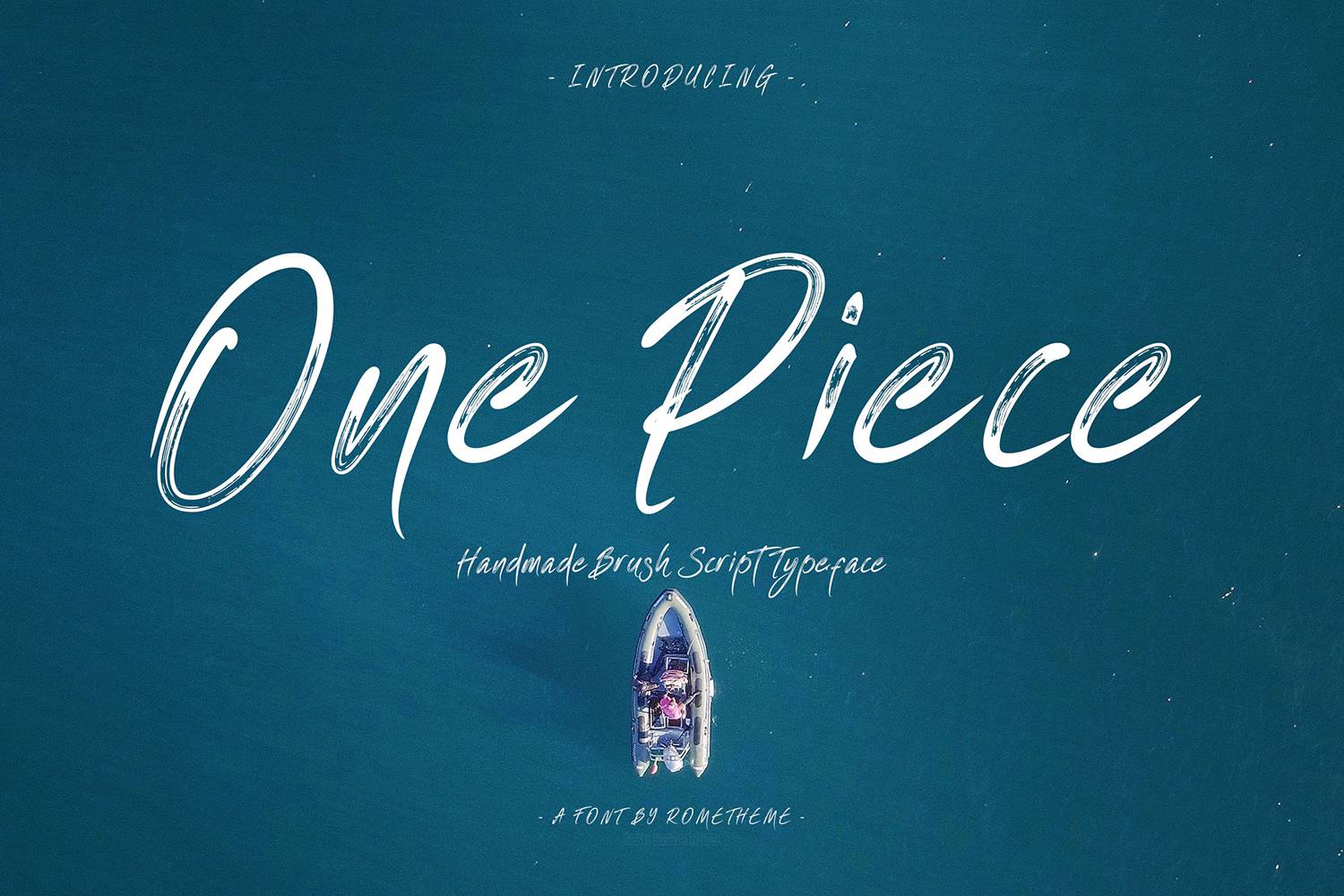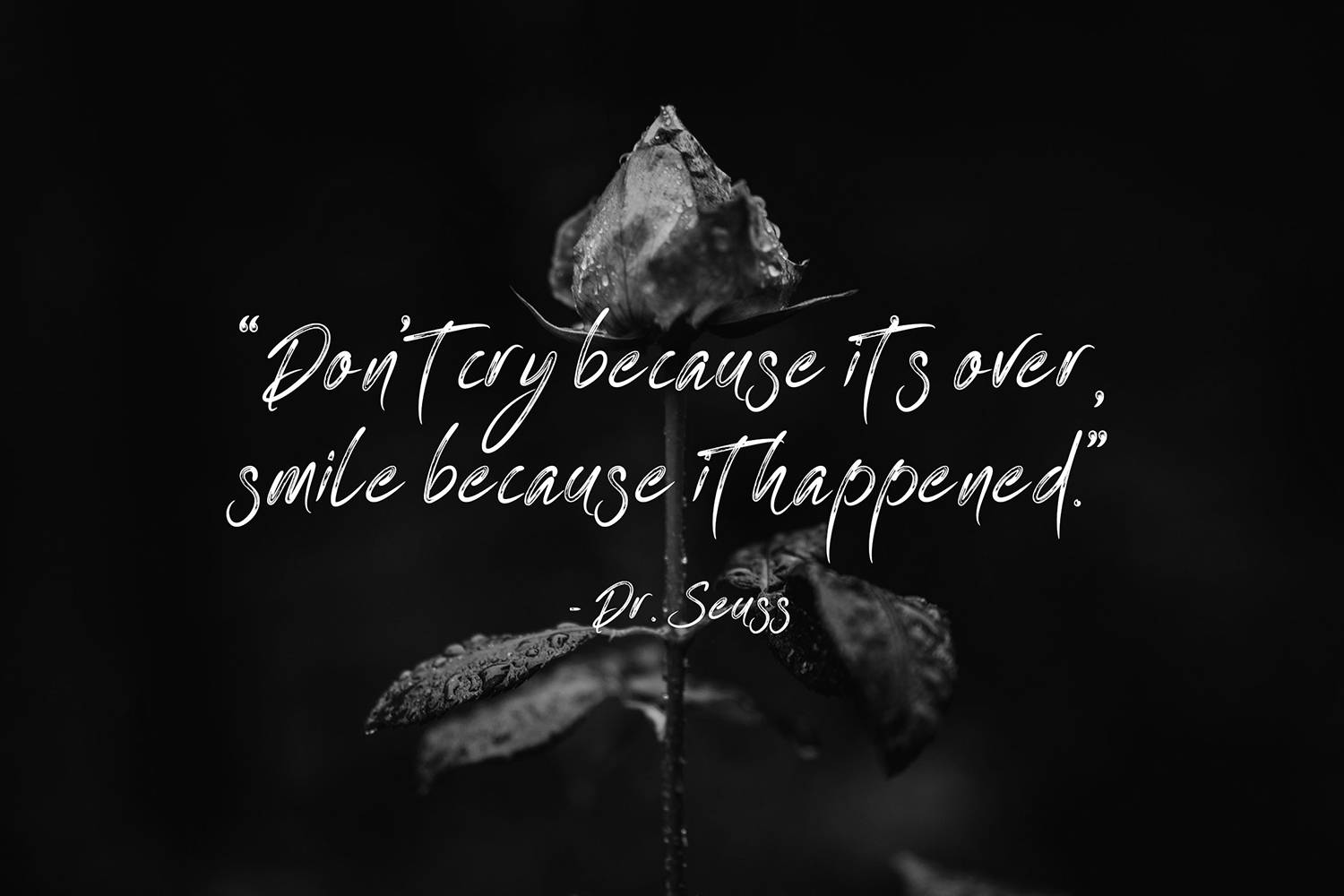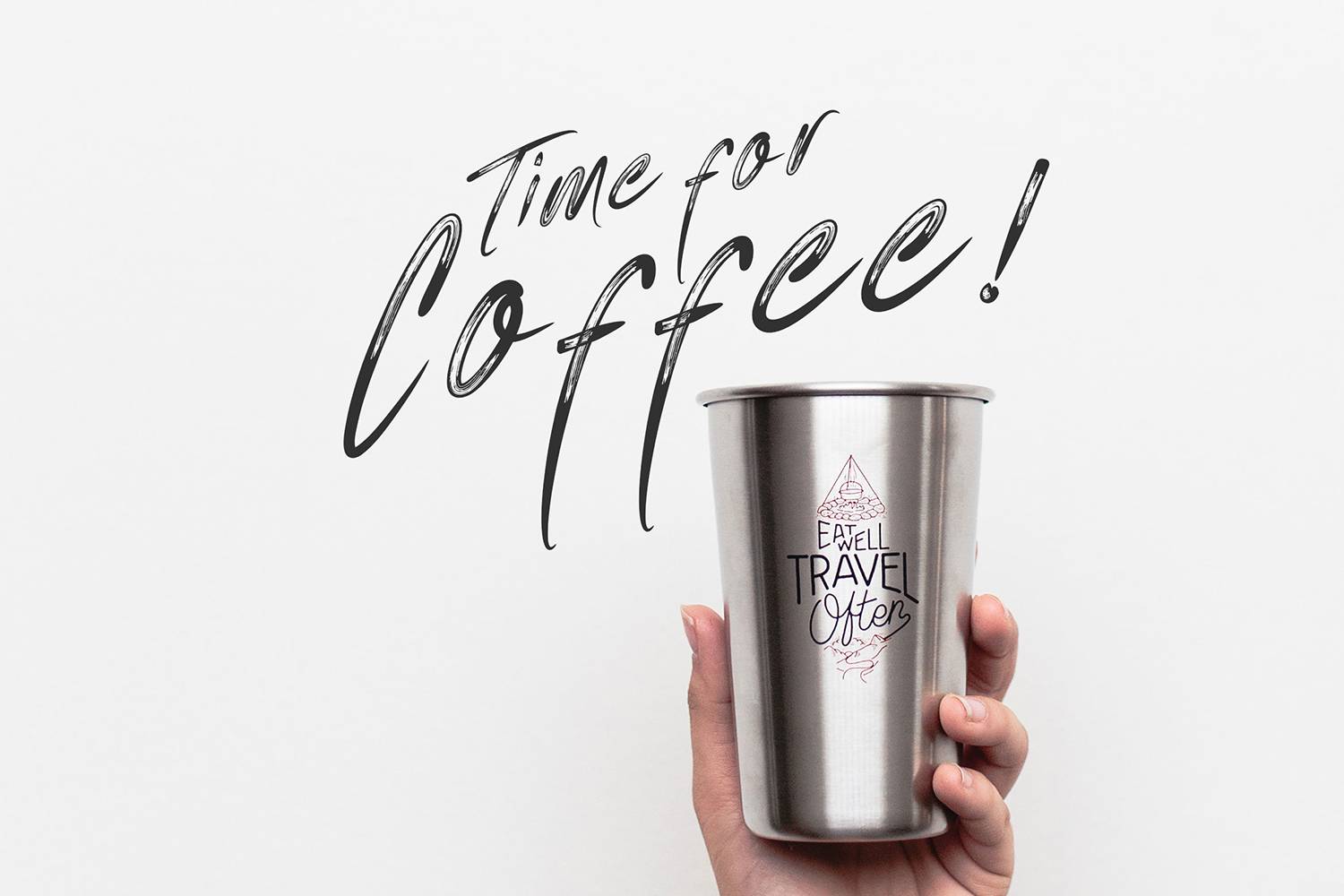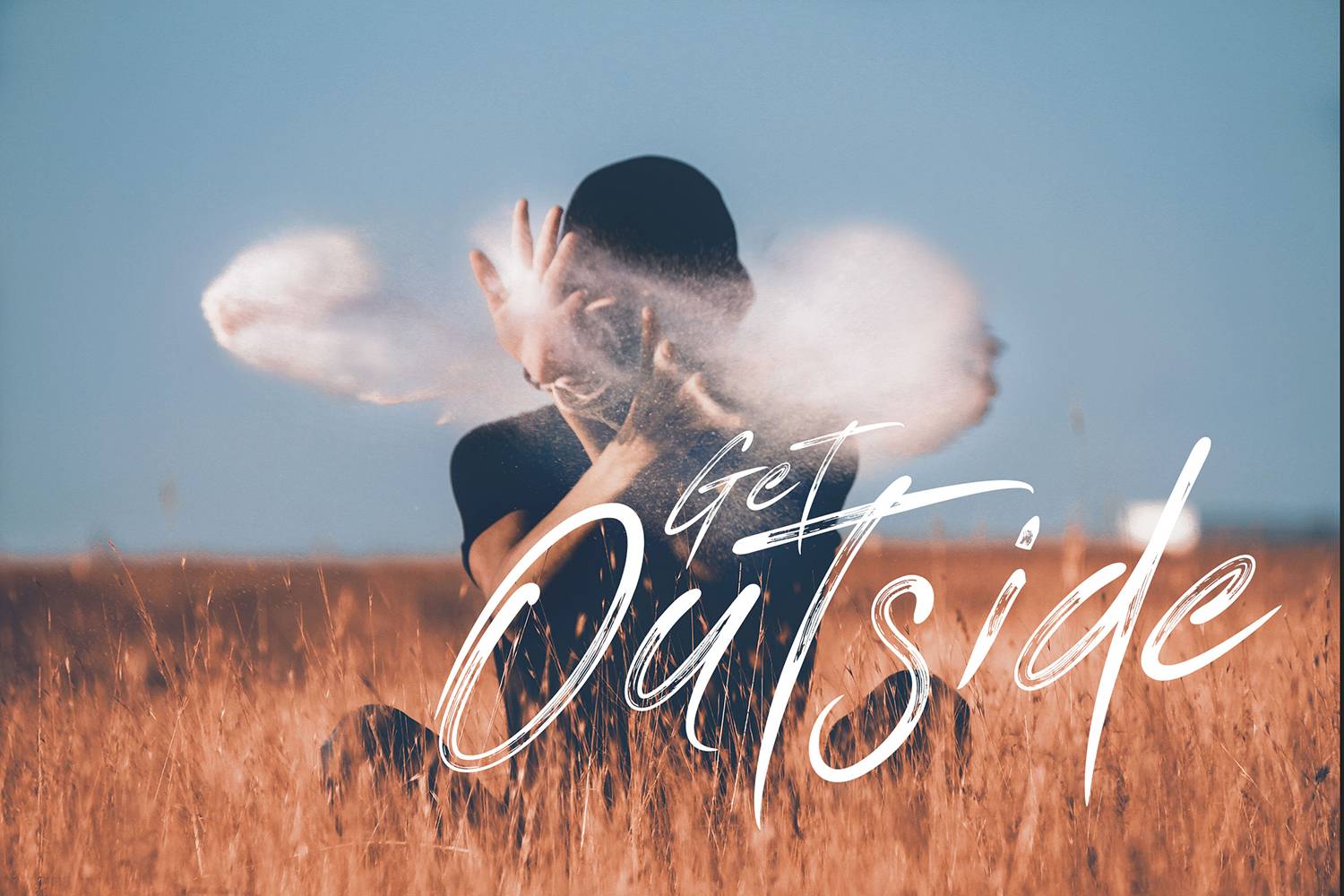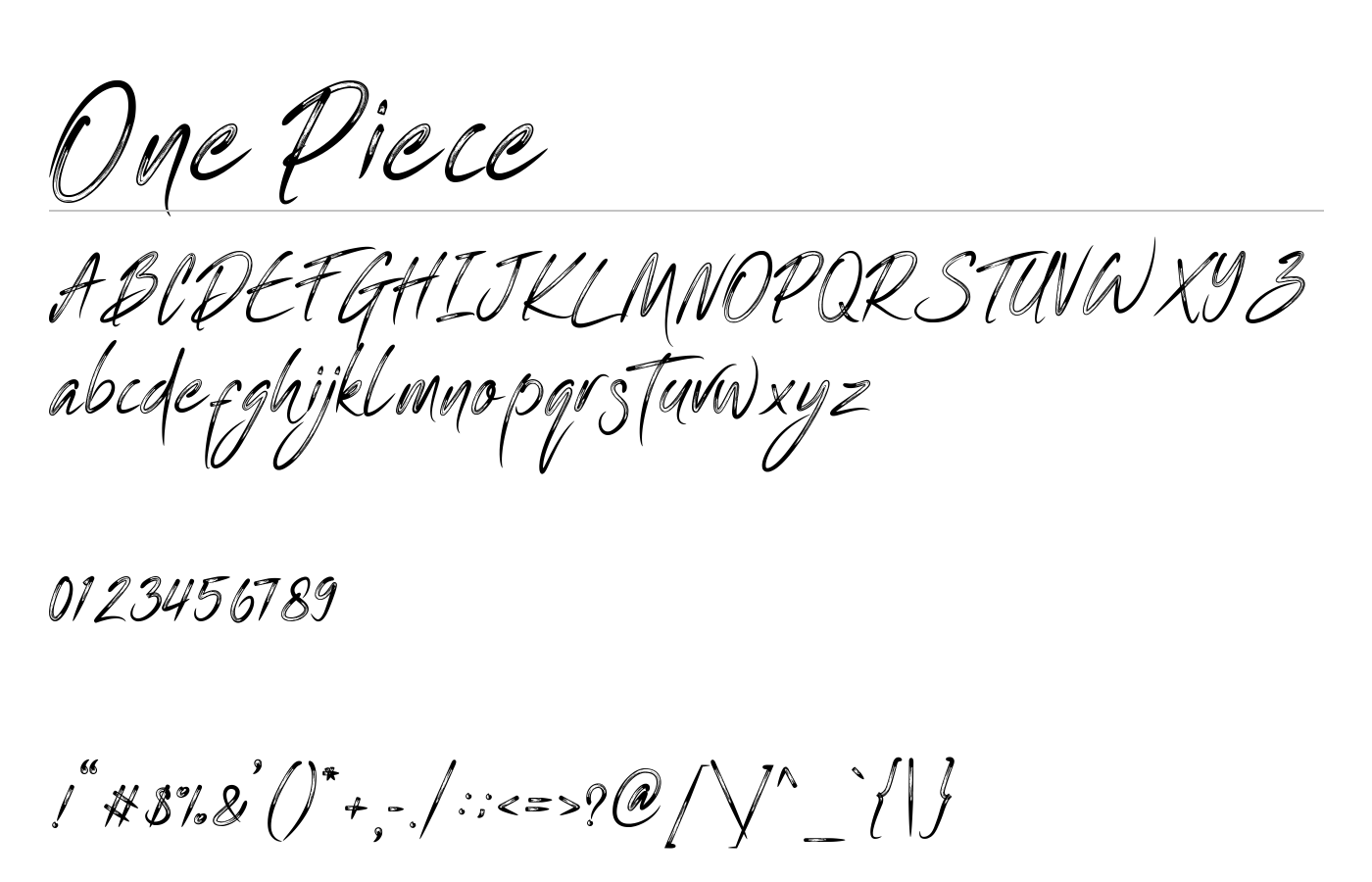
One Piece Font is a lively, handwritten script with a slender, energetic style that mimics natural brush strokes. Its tall, slightly condensed letterforms and fluid, imperfect lines give it a dynamic and expressive personality, ideal for adding a personal, artistic touch to creative projects like logos, posters, and fashion branding. This font works best where a casual yet stylish and modern handwritten feel is desired, bringing warmth and movement to headlines and display text.
One Piece Font
About One Piece Font
| Font family | One Piece Font |
| Release date | 2018-06-06 |
| Designer | Rometheme |